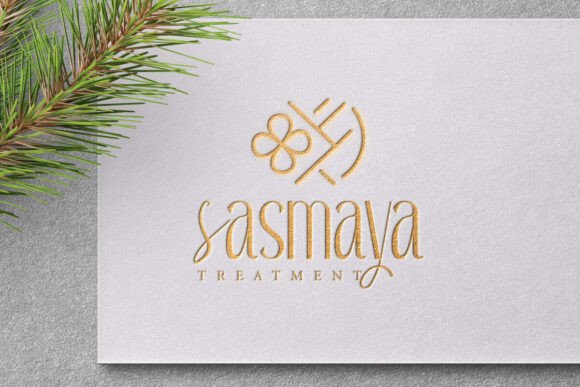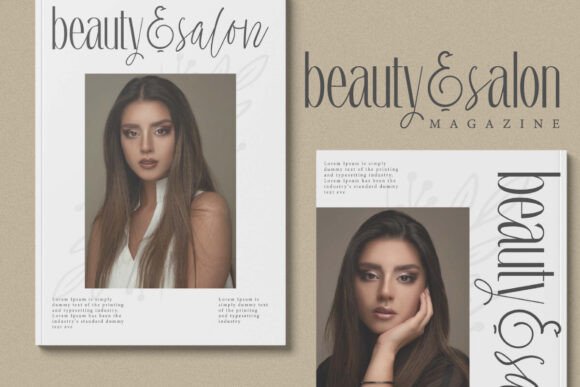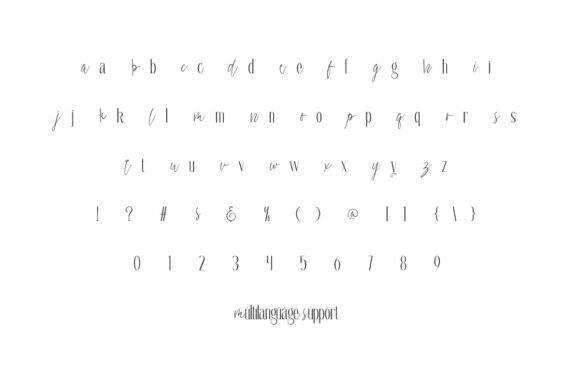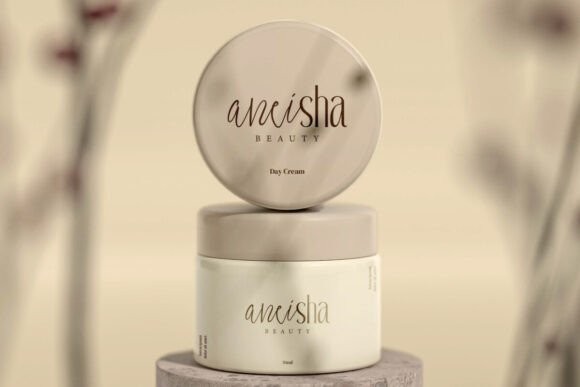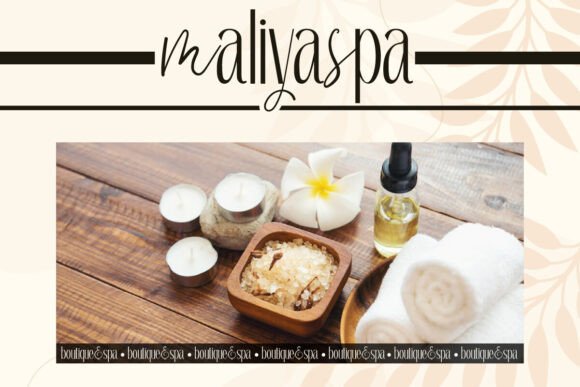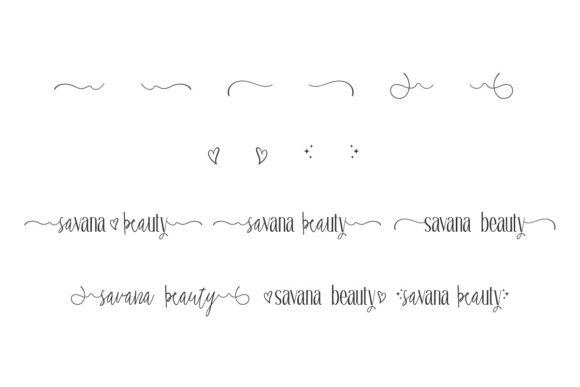
Introduction to Savana Beauty Font
Have you ever been scrolling through your social media feeds, and a beautiful, eye-catching font catches your attention? That’s exactly what happened to me the other day, and I was immediately inspired to dive deeper into the world of typography. The Savana Beauty Font is a stunning display font that has the power to elevate any design project, from a simple business card to a full-fledged brand identity.
As a designer, I know how crucial it is to have a reliable and versatile font at our disposal. That’s why I’m excited to share with you the wonders of the Savana Beauty Font, which boasts two distinct styles: an elegant script and a modern sans. This dynamic duo is perfect for adding a unique touch to your designs, and with its transparent background, it’s a breeze to layer and customize.
Key Features of Savana Beauty Font
- High-quality design resource for creative projects, offering a unique and elegant touch.
- Features a transparent background, allowing for seamless integration with any design or image.
- Comes in a range of sizes, from 12pt to 72pt, making it versatile for use in various design contexts.
- Unique characteristics include a mix of modern and classic elements, making it perfect for a wide range of design applications, from branding to editorial design.
Honest Review: Savana Beauty Font
As a designer, I’m always on the lookout for high-quality design resources that can elevate my creative projects. Recently, I came across the Savana Beauty Font, and I’m excited to share my honest review with you.
- ✨ Beautiful, elegant script font perfect for feminine designs, invitations, and wedding projects.
- ✨ Comes in a range of styles, from casual to formal, making it a versatile choice for various creative projects.
- ✨ Includes a transparent background, making it easy to layer and customize in design applications.
The Savana Beauty Font is a high-quality design resource ideal for creative projects requiring a touch of elegance and sophistication. With its unique and captivating style, this font is perfect for designers looking to add a personal touch to their designs.
The Savana Beauty Font is perfect for:
- Beauty and fashion branding.
- High-end product packaging.
Yes, the Savana Beauty Font is a high-quality design resource that offers a unique and elegant style. With its carefully crafted letterforms and attention to detail, this font is perfect for designers seeking a sophisticated and refined look for their creative projects. Whether you’re working on a branding project, a digital product, or a print publication, the Savana Beauty Font is an excellent choice.